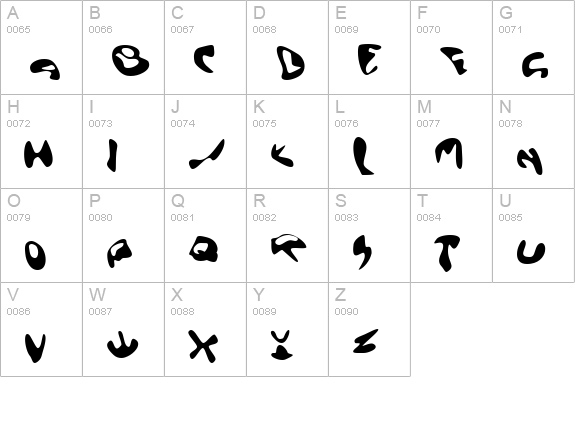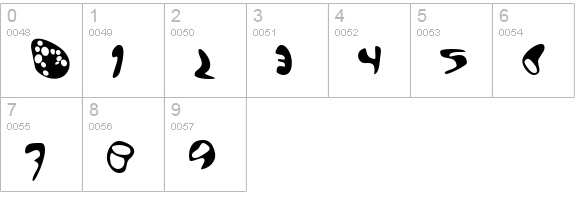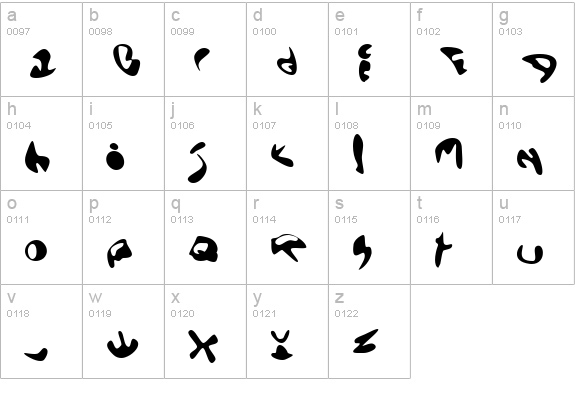
EctoBlaster Font Details
Introducing EctoBlaster font, a hauntingly captivating typeface that seamlessly blends the eerie essence of the supernatural with modern design elements. This font is a perfect choice for those seeking to add a touch of mystique and intrigue to their creative projects. EctoBlaster font features a unique combination of sharp edges and curvaceous forms, giving it a distinct presence that demands attention. Its bold and powerful letterforms evoke a sense of otherworldly energy, making it ideal for headlines, logos, posters, and any design that requires a touch of the extraordinary. But what sets EctoBlaster font apart from the rest? Well, not only does it possess an undeniable charm, but it is also available for free! That's right, this exceptional font can be freely downloaded at FontsMarket.com, allowing you to unleash your creativity without any financial constraints. Whether you're working on a spooky Halloween-themed project, a paranormal blog, or a ghostly graphic novel, EctoBlaster font will effortlessly bring your vision to life. Its versatility and legibility make it suitable for both digital and print mediums, ensuring that your message is effectively conveyed to your audience. So, don't miss out on this opportunity to elevate your designs with the captivating allure of EctoBlaster font. Embrace the supernatural and download it for free at FontsMarket.com today. Unleash your imagination and let EctoBlaster font weave its enchanting spell on your creative endeavors.